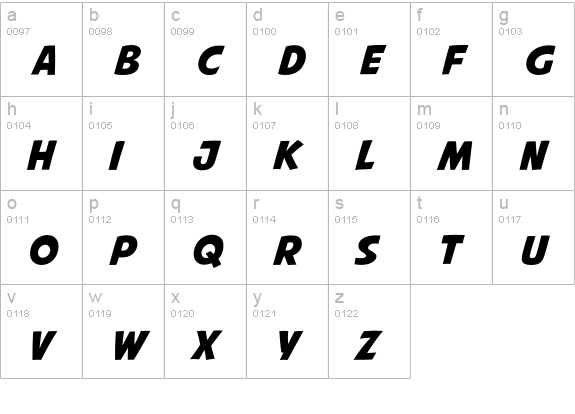
Introducing Avengeance Mightiest Avenger, a font that embodies the true essence of power, strength, and heroism. This remarkable typeface is meticulously crafted to capture the bold and commanding presence of the mightiest avenger. With its sharp edges, imposing stature, and intricate details, Avengeance Mightiest Avenger demands attention and exudes an air of invincibility. This font is not just a mere collection of letters; it is a symbol of justice and righteousness. Each character is carefully designed to reflect the heroic spirit that lies within all of us. Whether you're creating eye-catching headlines, designing dynamic logos, or crafting impressive posters, Avengeance Mightiest Avenger will elevate your projects to superheroic levels. But what truly sets Avengeance Mightiest Avenger apart is its availability as a free download. That's right, this extraordinary font is freely accessible to all aspiring designers and typography enthusiasts alike. You can easily obtain this font by visiting FontsMarket.com, where it awaits your creative touch, ready to unleash its immense power. Don't miss this incredible opportunity to wield the strength and might of Avengeance Mightiest Avenger in your designs. Download it today and join the ranks of those who dare to make a bold statement. Unleash your inner superhero and let Avengeance Mightiest Avenger be your trusty sidekick on your creative journey.